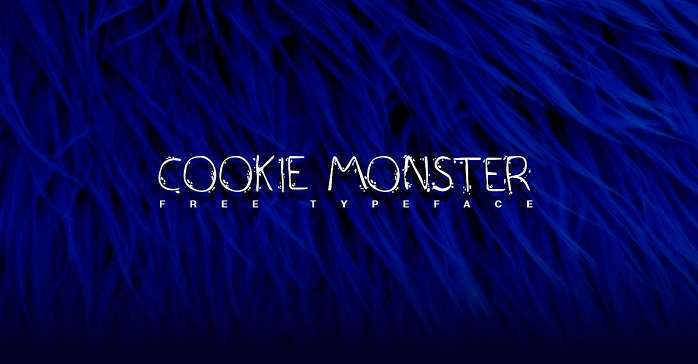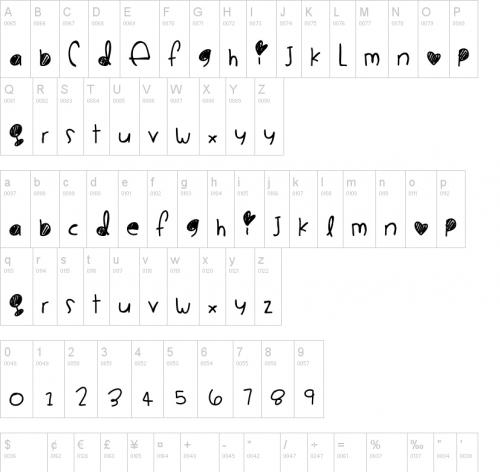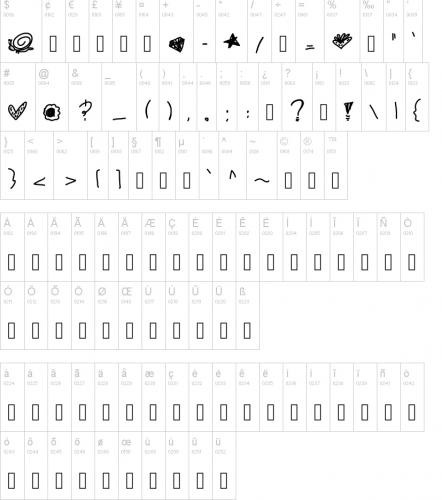
Cookie Monster free font is a funny handwritten typeface for handcrafted goods, various print designs and more. It includes uppercase and lowercase letters and numerals.
Cookie Monster is a high quality Valentine font that is designed by Des Gomez and is available for free download personal & commercial use.